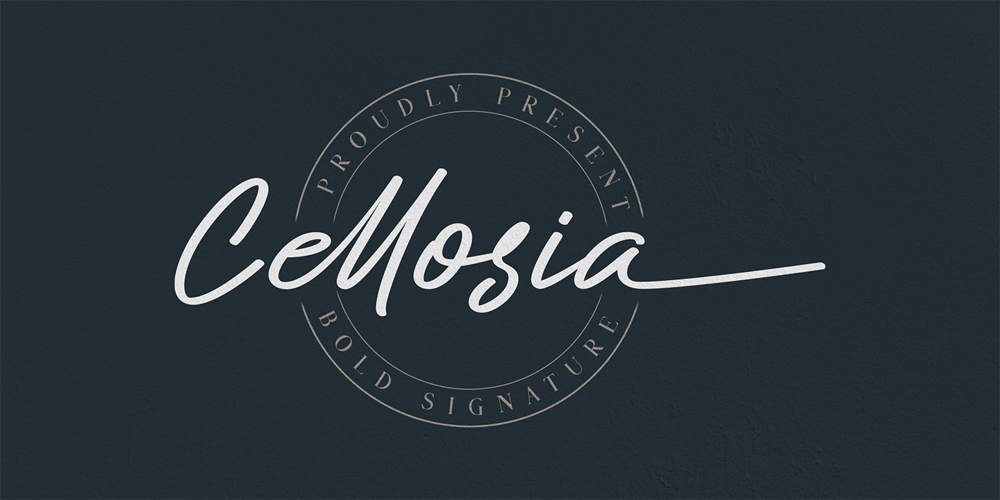
Cellosia Font Family was designed by Winarno and published by Bluestudio. Cellosia contains 1 styles and family package options. Cellosia is made to resemble hand scratches, so it looks like a natural style like your own hand scratches.Cellosia offer beautiful typographic harmony for a variety of design projects, including watermark, logos, branding, wedding designs, social media posts, advertisements, product designs, magazines and others.